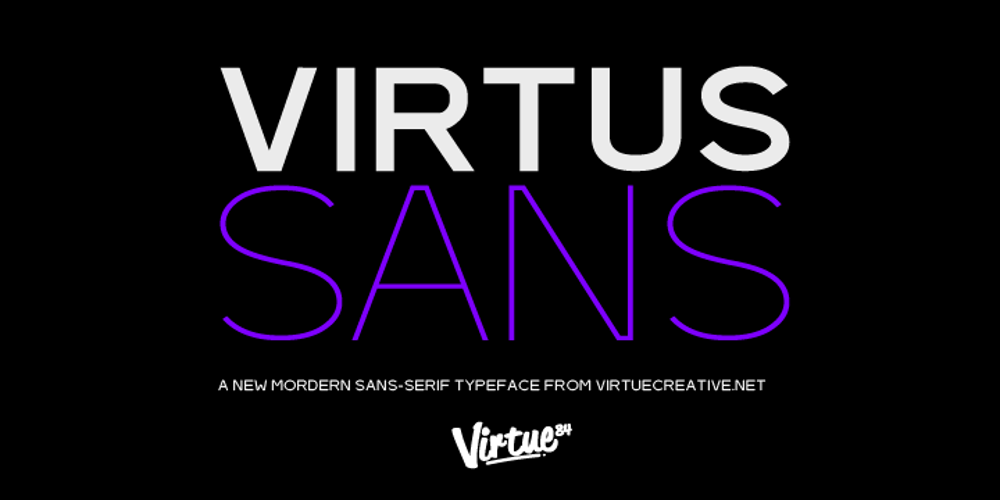
Virtus Sans Font Family was designed by published by Andrew Footit. Virtus Sans contains 8 styles and family package options. This clean sans-serif typeface brings your designs and layouts together in one great looking typeface, uncomplicated and legible large or small. VIRTUS SANS has 4 weights each with italics.